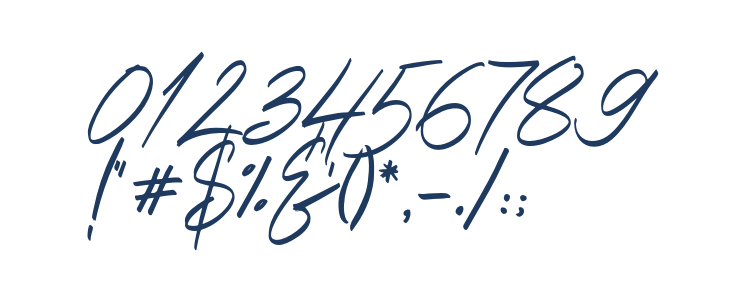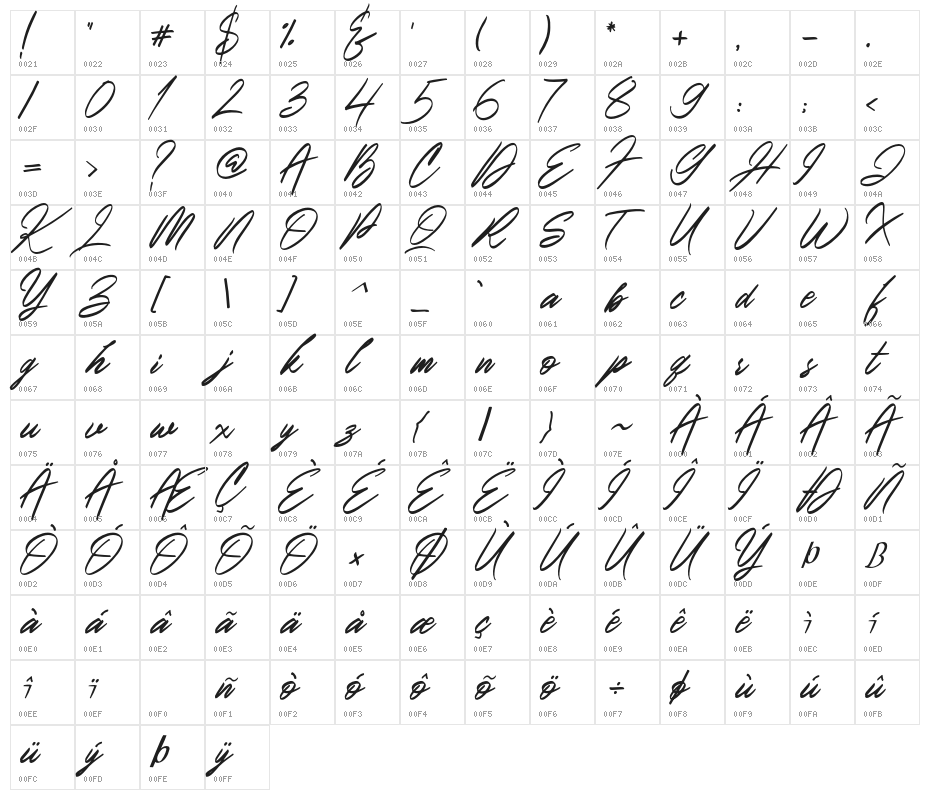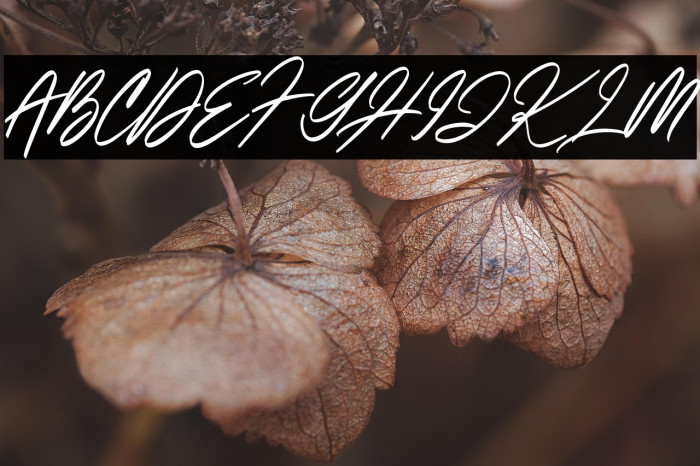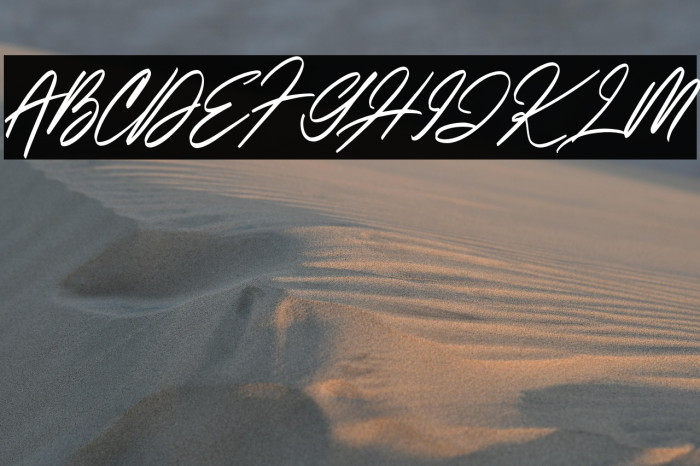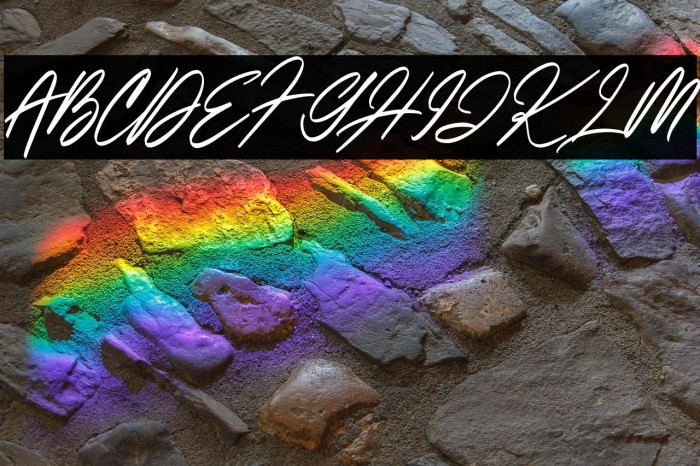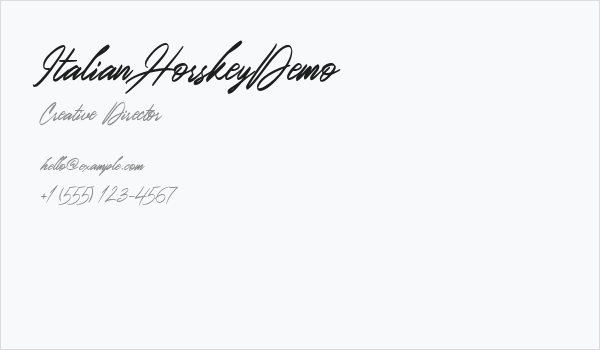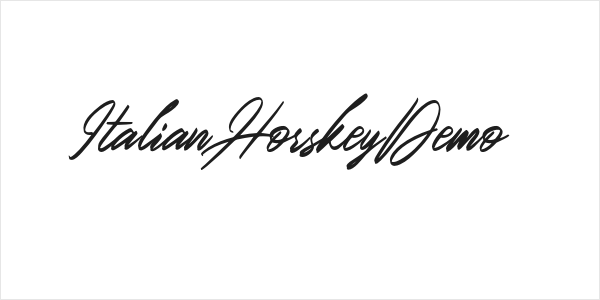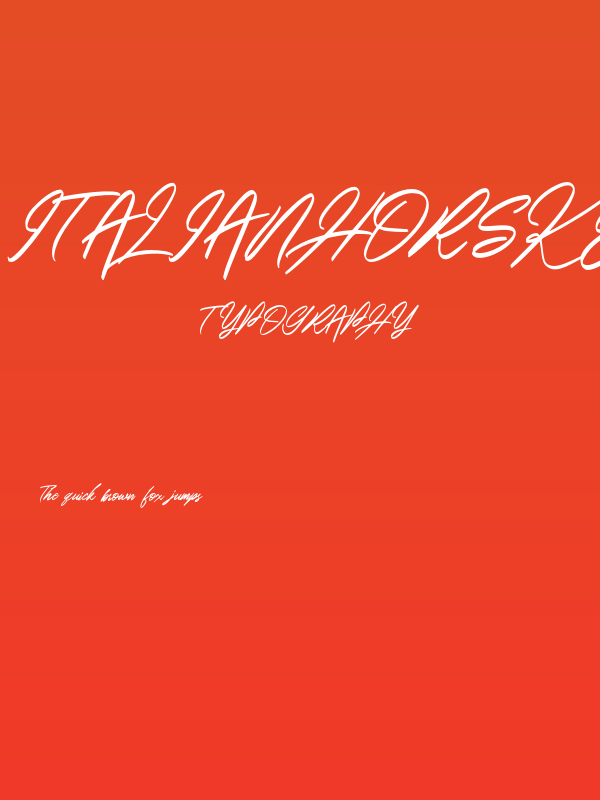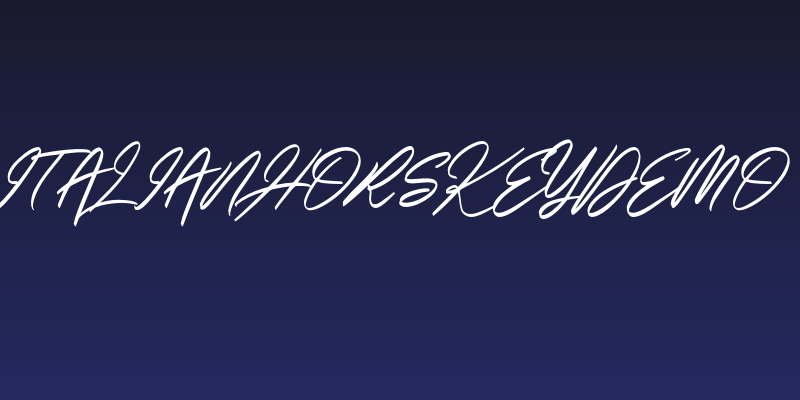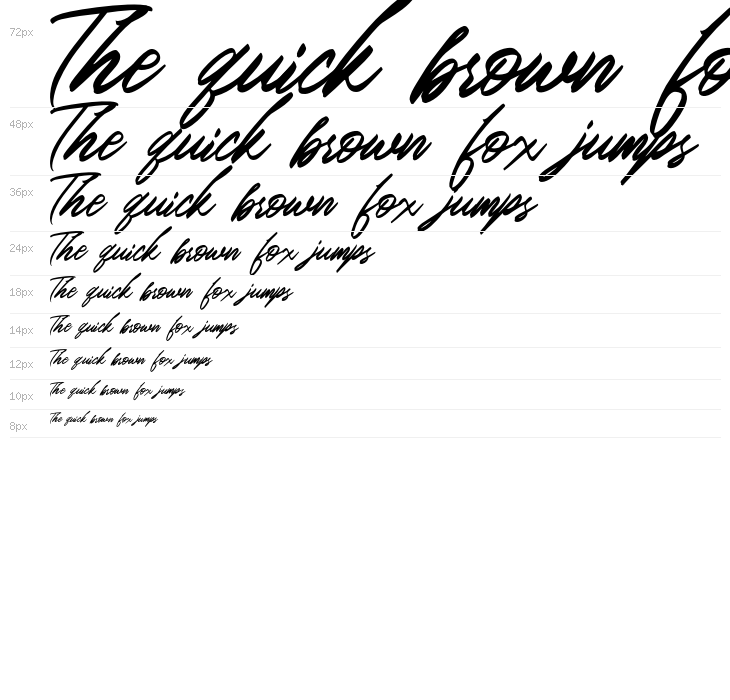
ItalianHorskeyDemo Font
ItalianHorskeyDemo Description
This font features a dynamic and fluid script style, characterized by its elegant and flowing cursive letters. The uppercase and lowercase letters are intricately designed with smooth curves and a consistent slant, giving it a handwritten appearance. The numerals and special characters maintain the same fluidity, ensuring a cohesive look across all glyphs. The strokes vary in thickness, adding a sense of movement and grace. This font is ideal for projects that require a personal touch, such as invitations, greeting cards, or branding materials that aim to convey elegance and sophistication.